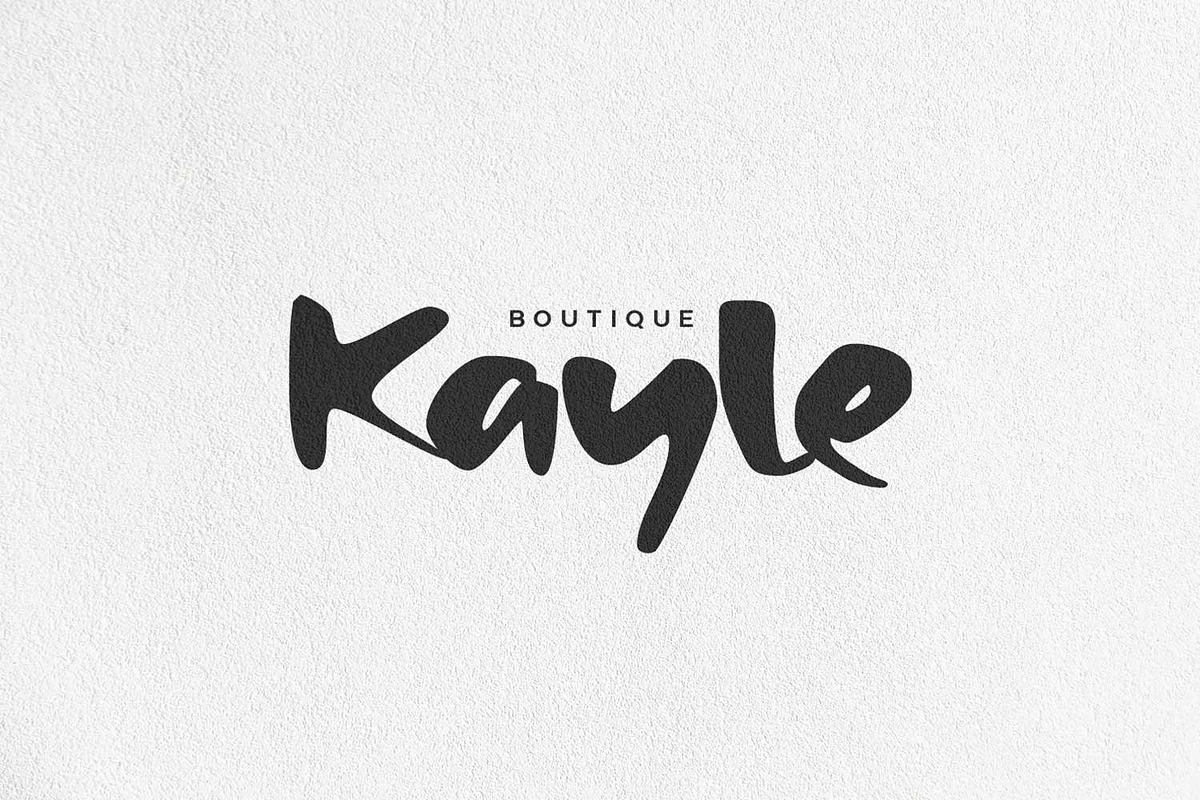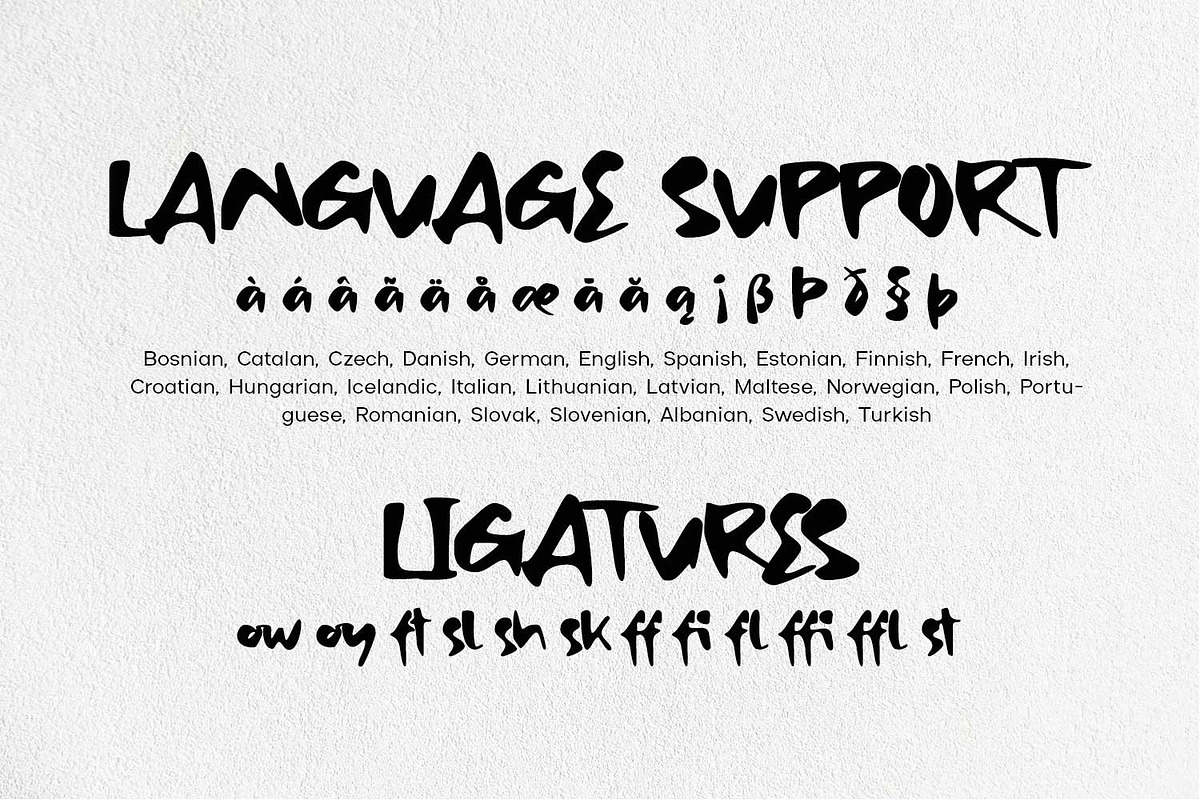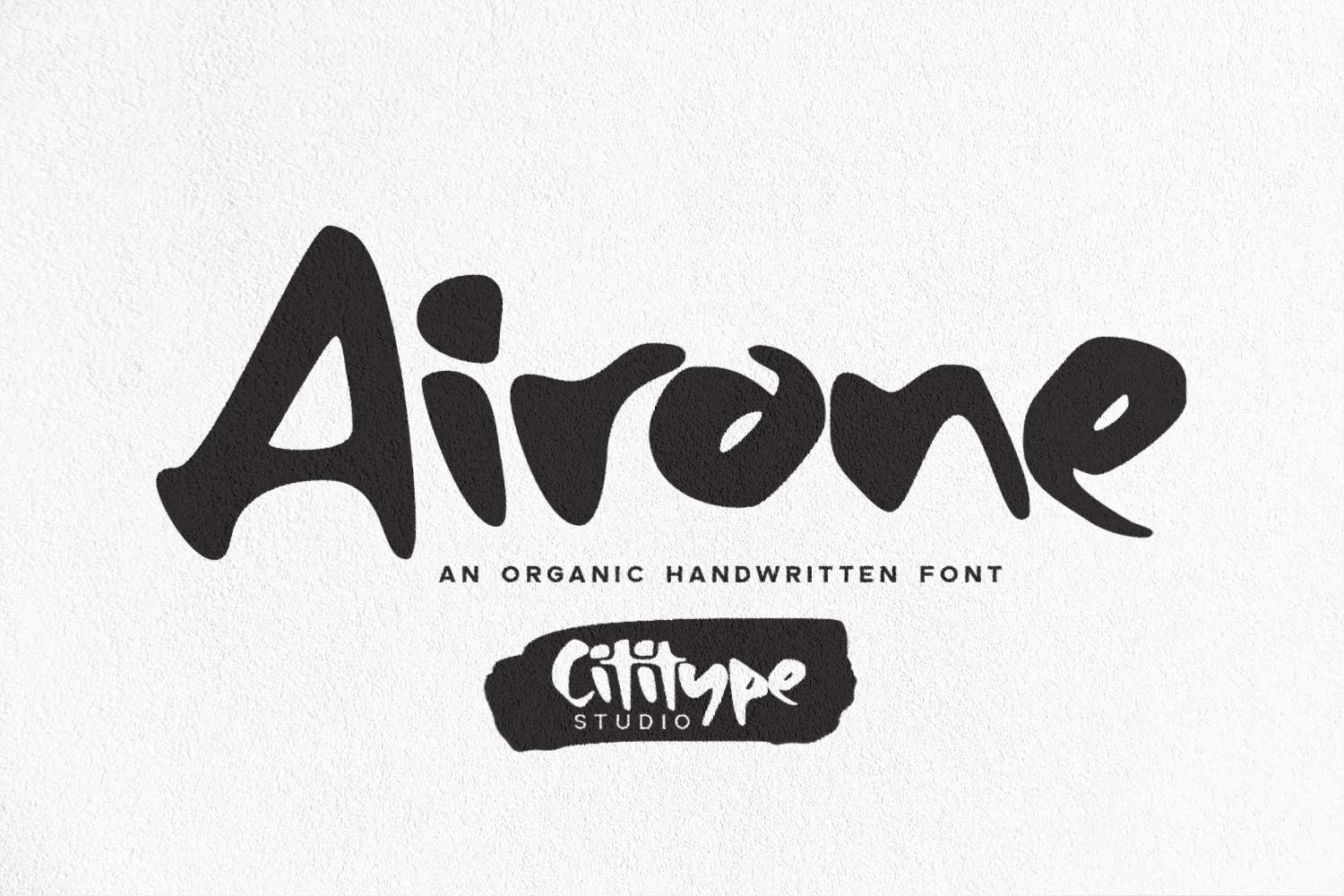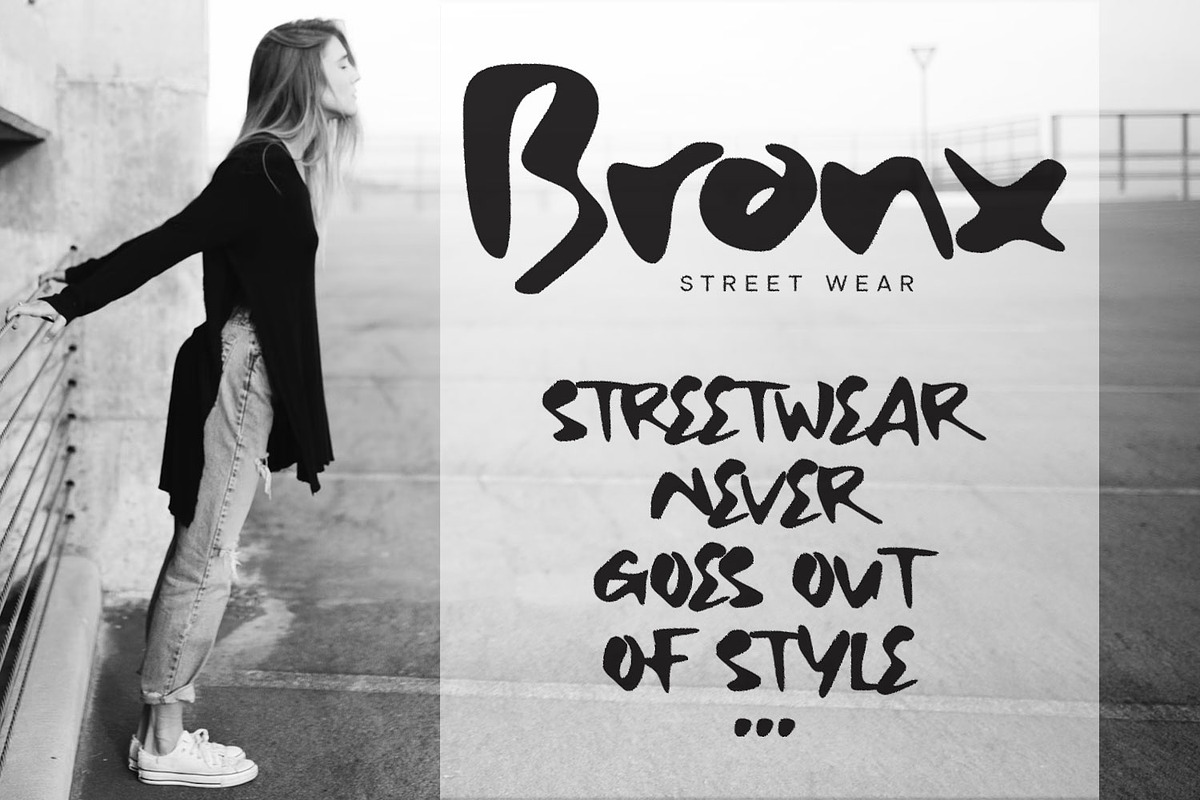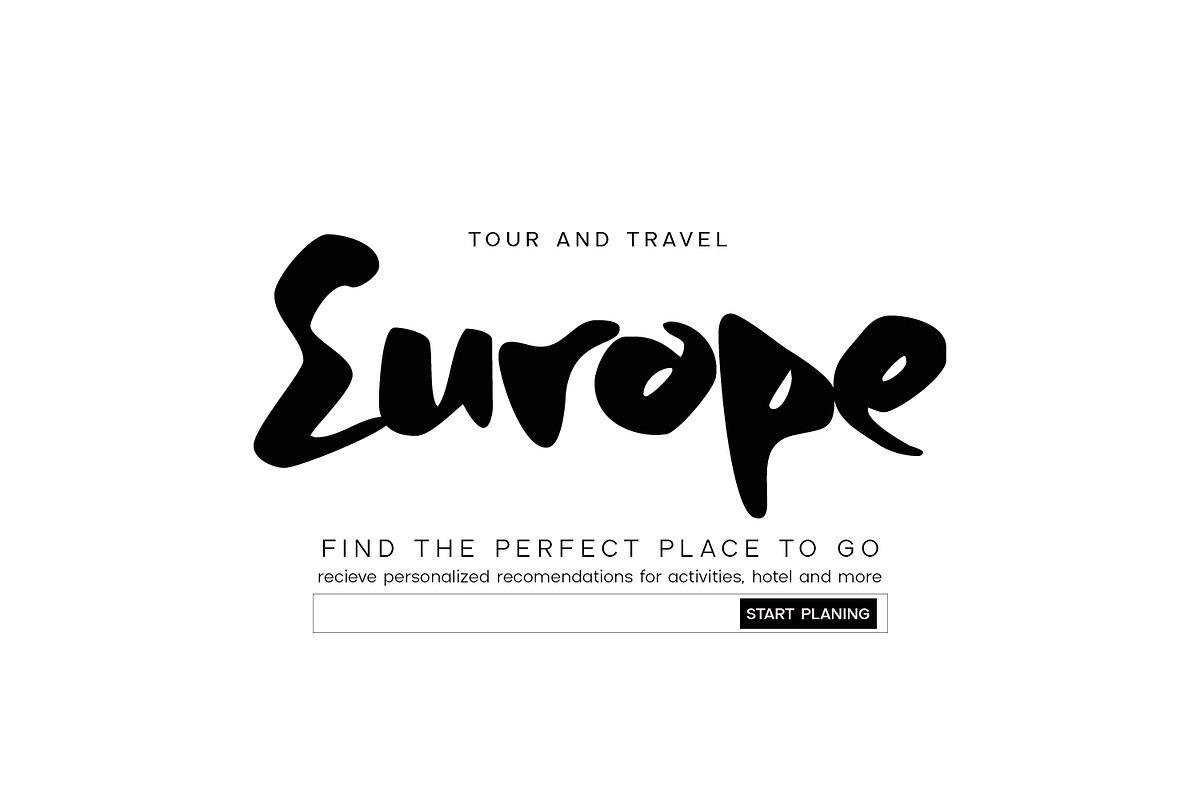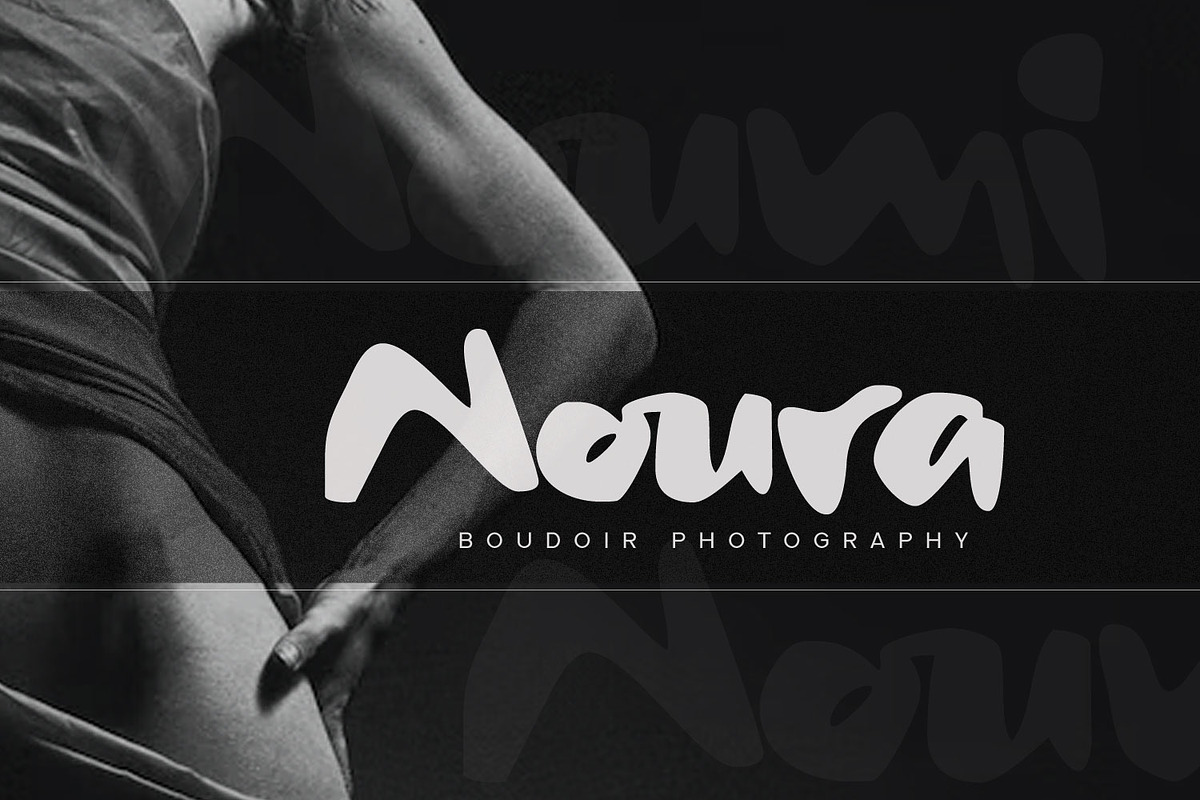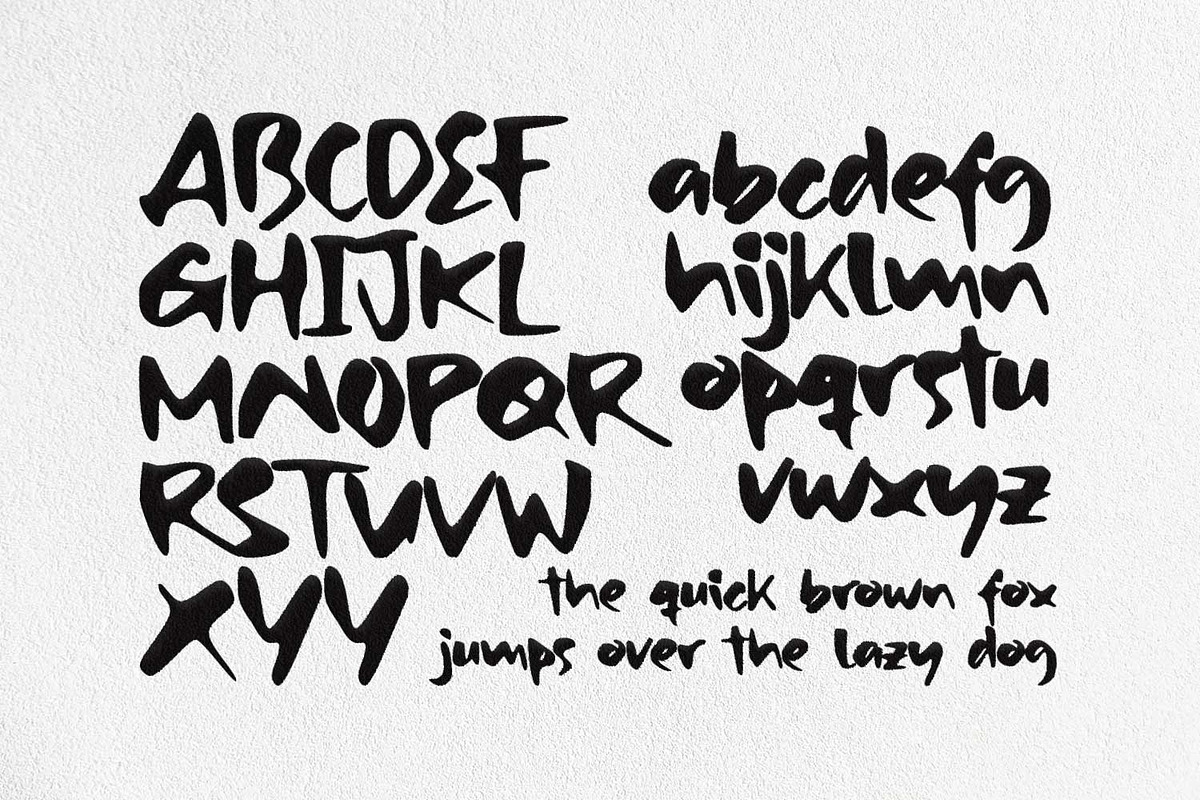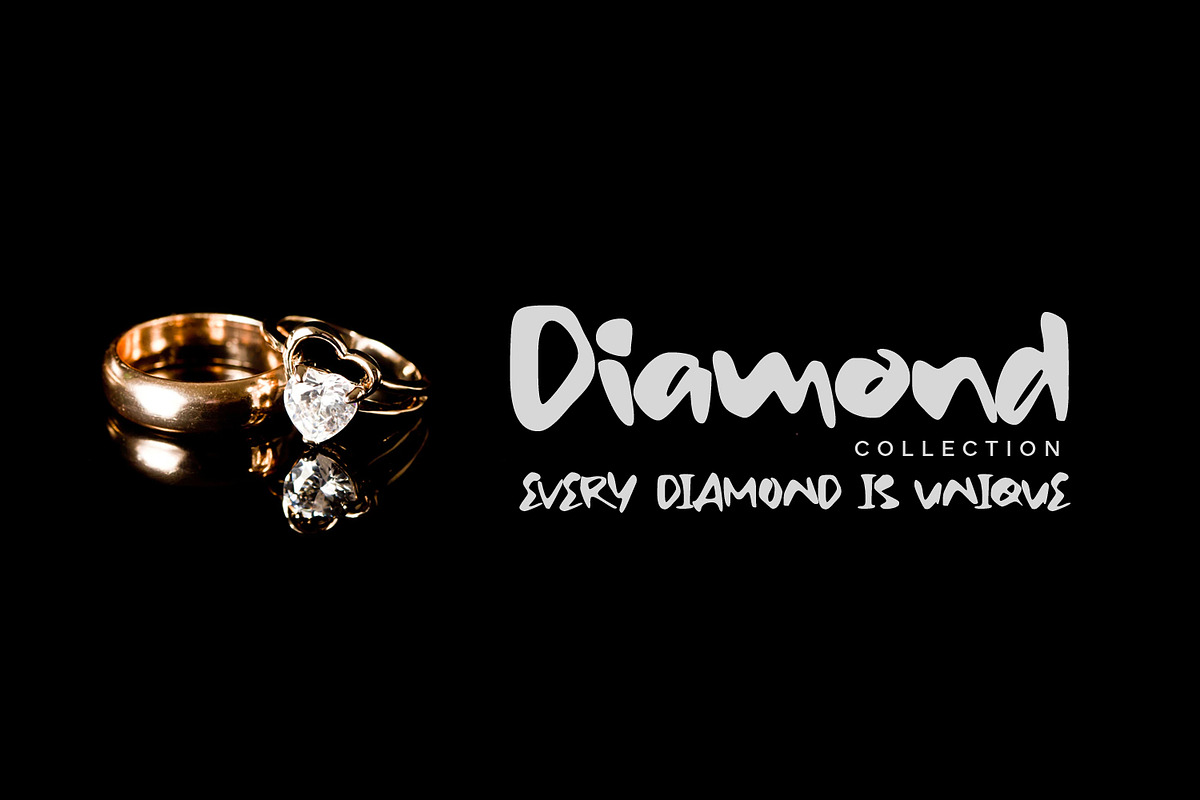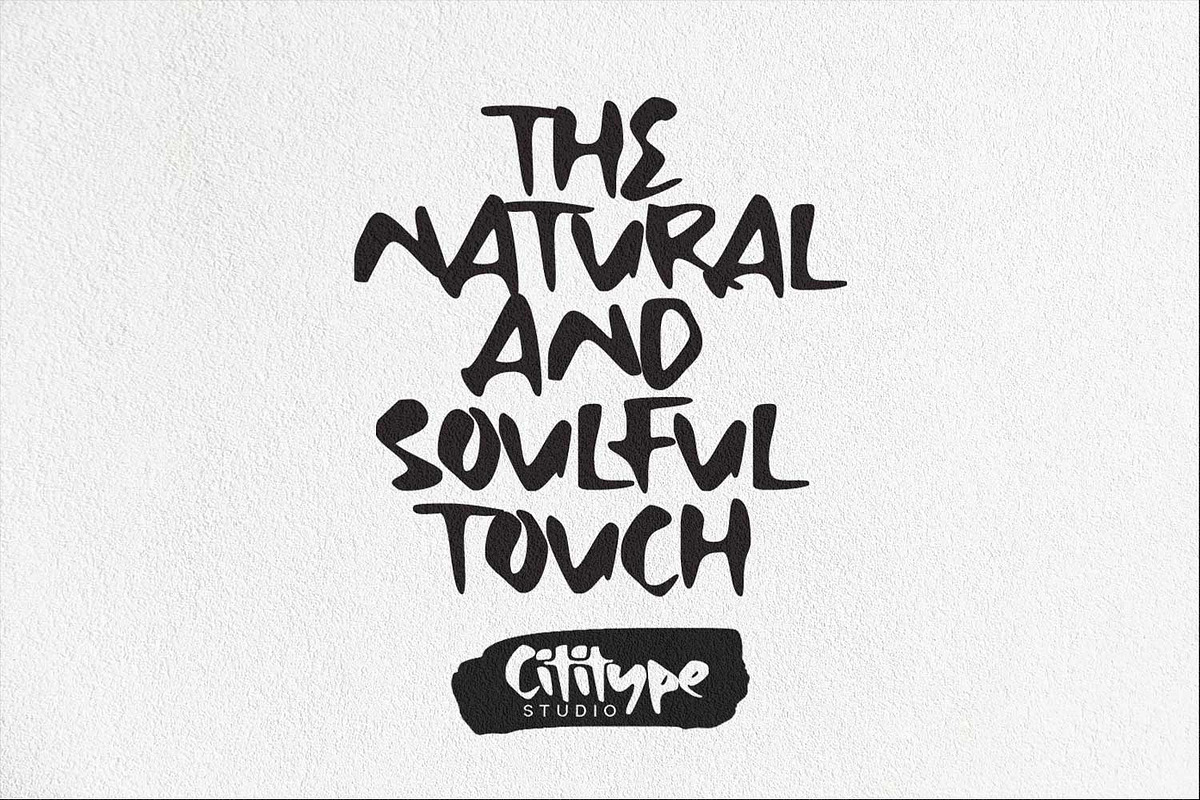
Airone - Organic Handwritten Font
Airone is an authentic & organic hand-drawn script font . Every single letter has been carefully crafted to make your design look natural. This style is perfect for branding, photography, watermark, quotes, blog header, poster, wedding,
Airone Featuring ligatures and alternates, Supports Western European, Central/Eastern European, Baltic, Turkish, Romanian Language.